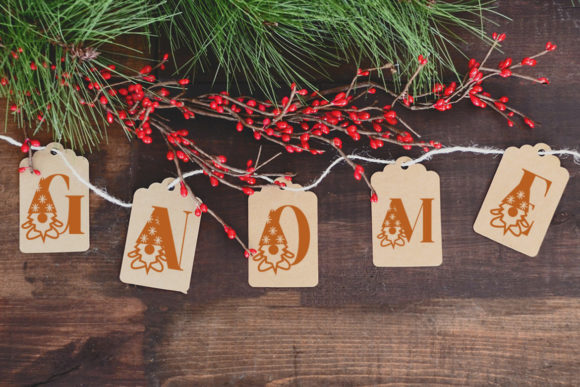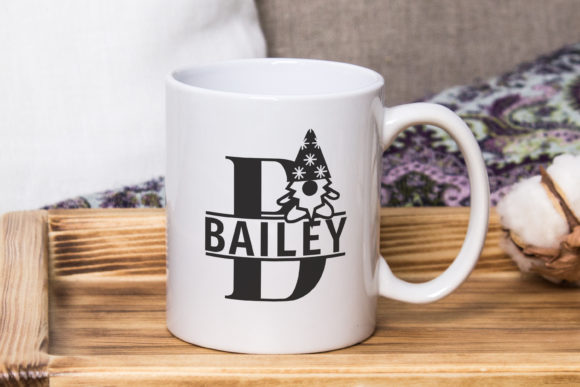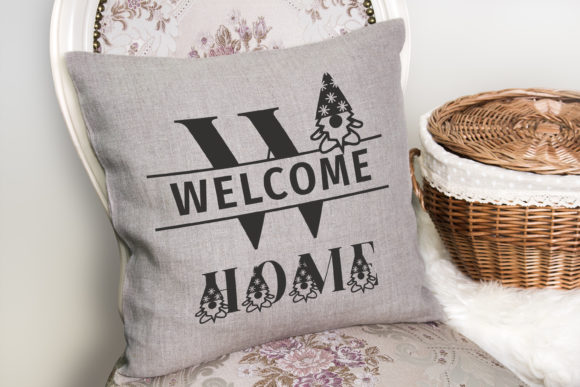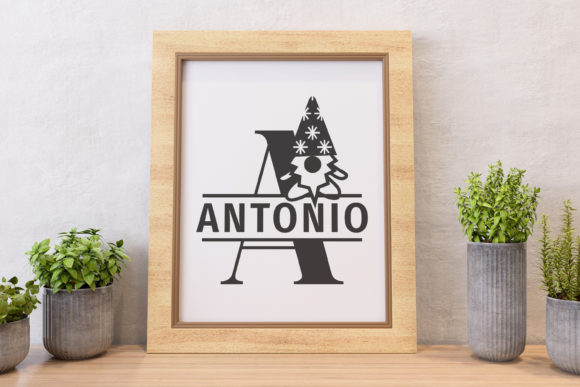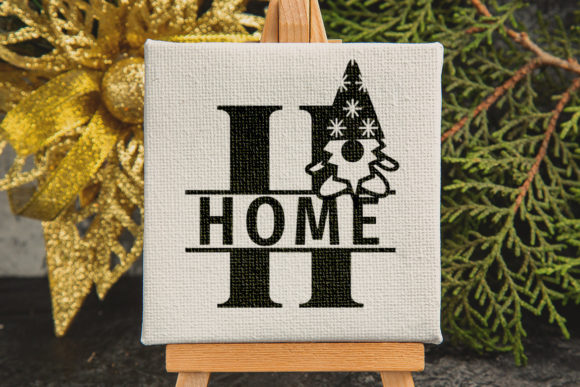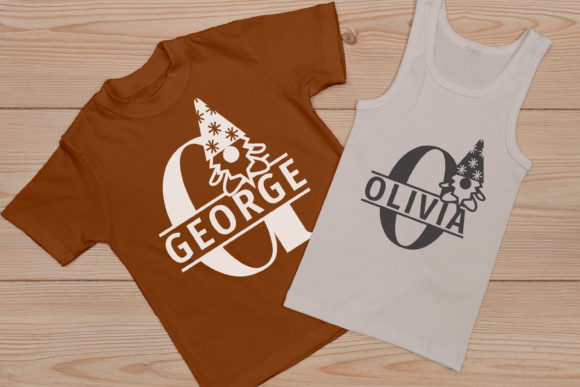
Gnomes Monogram Font: Add a Touch of Whimsy to Your Designs
Gnomes Monogram Font is a charming and distinctive decorative font that is sure to add a touch of romance and elegance to any design project. This dainty font is perfect for crafters, designers, and anyone looking to add a personal touch to their work. In this article, we’ll take a closer look at Gnomes Monogram Font, its features, and how you can use it to elevate your designs.
What is Gnomes Monogram Font?
Gnomes Monogram Font is a unique and decorative font that features intricate and delicate lettering. The font is designed to resemble traditional monogramming, with a touch of whimsy and playfulness. Each letter is carefully crafted to create a sense of elegance and sophistication, making it perfect for a variety of design projects.
Features of Gnomes Monogram Font
Gnomes Monogram Font has several features that make it stand out from other decorative fonts. Some of its key features include:
- Unique and intricate lettering: Each letter in Gnomes Monogram Font is carefully crafted to create a sense of elegance and sophistication.
- Romantic and whimsical feel: The font has a romantic and whimsical feel that makes it perfect for wedding invitations, love letters, and other design projects.
- High-quality design: The font is designed with high-quality graphics, ensuring that it looks great in any design project.
- Easily customizable: Gnomes Monogram Font is easily customizable, allowing you to adjust the font to fit your design needs.
Uses for Gnomes Monogram Font
Gnomes Monogram Font is a versatile font that can be used for a variety of design projects. Some of the most popular uses for this font include:
- Wedding invitations: Add a touch of romance and elegance to your wedding invitations with Gnomes Monogram Font.
- Love letters: Make your love letters extra special with this beautiful and unique font.
- Design projects: Use Gnomes Monogram Font to add a touch of whimsy and playfulness to your design projects, such as brochures, flyers, and posters.
- Crafting projects: This font is perfect for crafters who want to add a personal touch to their projects, such as scrapbooking, card making, and journaling.
Tips for Using Gnomes Monogram Font
Here are some tips for using Gnomes Monogram Font in your design projects:
- Use it sparingly: Gnomes Monogram Font is a decorative font, so it’s best to use it sparingly to avoid overwhelming your design.
- Pair it with other fonts: Pair Gnomes Monogram Font with other fonts to create a unique and interesting design.
- Adjust the size and color: Adjust the size and color of the font to fit your design needs.
- Experiment with different designs: Don’t be afraid to experiment with different designs and layouts to find the perfect look for your project.
Gnomes Monogram Font is a beautiful and unique decorative font that is perfect for adding a touch of romance and elegance to any design project. With its intricate and delicate lettering, romantic and whimsical feel, and high-quality design, this font is sure to become a favorite among designers and crafters. Whether you’re looking to create wedding invitations, love letters, or other design projects, Gnomes Monogram Font is a great choice.
Overall, Gnomes Monogram Font is a beautiful and unique font that is sure to add a touch of whimsy and romance to any design project. With its delicate lettering, romantic feel, and high-quality design, this font is a great choice for designers and crafters looking to create something special.